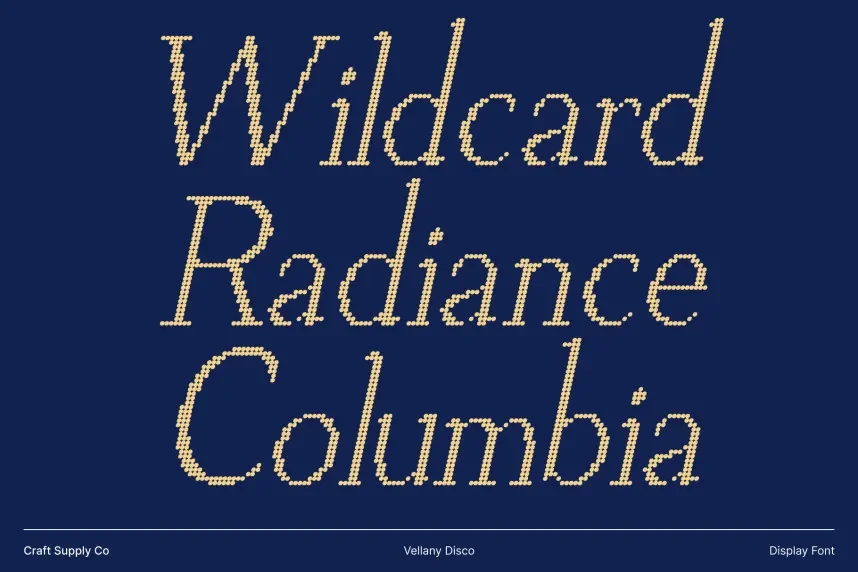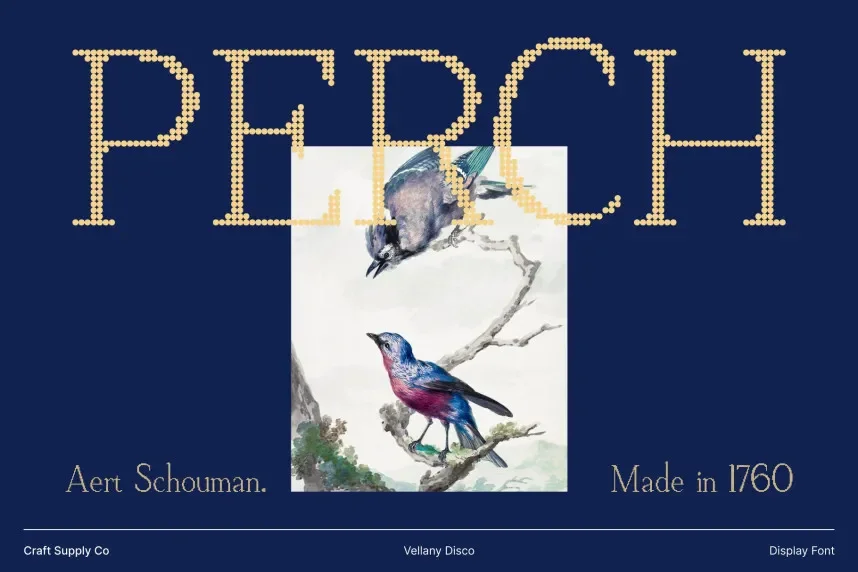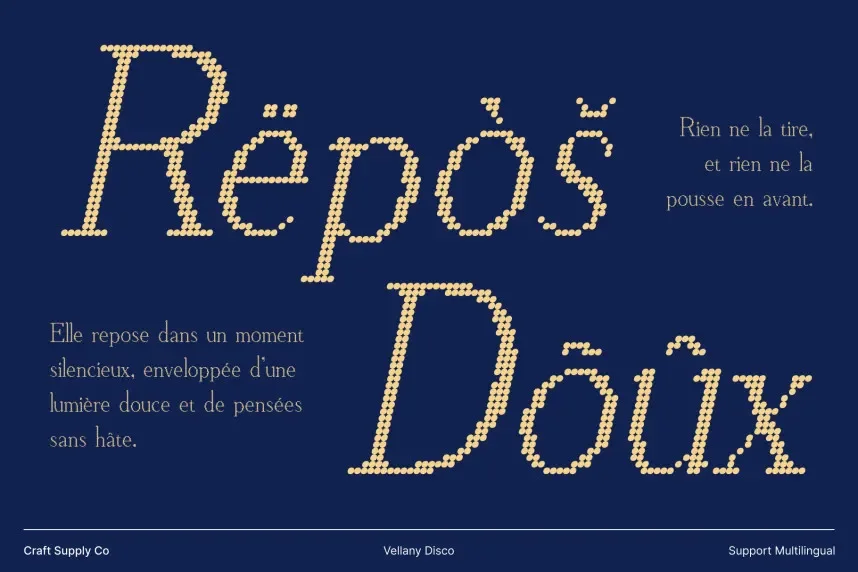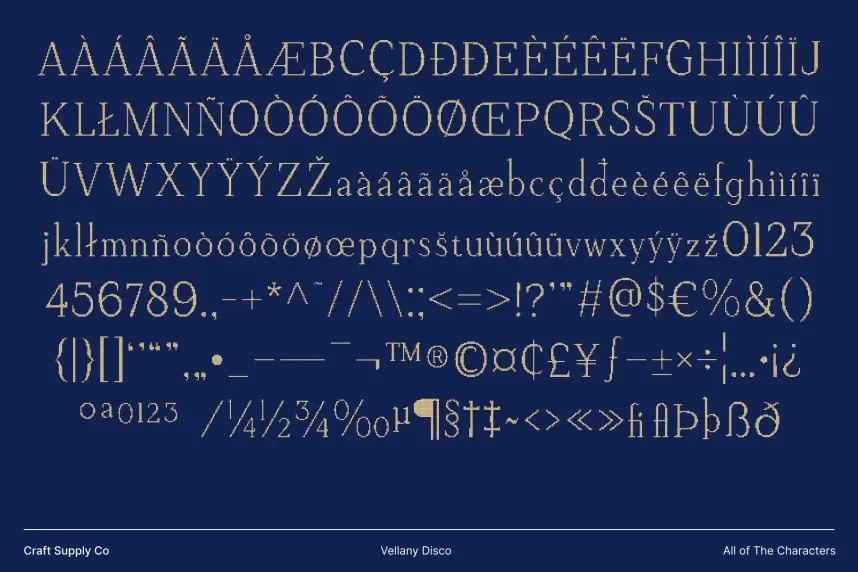
Vellany Disco Font is a display typeface designed to fix common readability issues in bold, decorative branding. Designers often need headline fonts that stay clear across posters, logos, and social media graphics while keeping a consistent retro tone in print and digital layouts.
This font belongs to the display font category, inspired by disco-era typography. It uses thick strokes, rounded curves, and uniform letter widths. Stroke contrast stays low, which helps characters remain readable at large sizes. The letterforms focus on strong geometry rather than fine details, making the font reliable for short text.